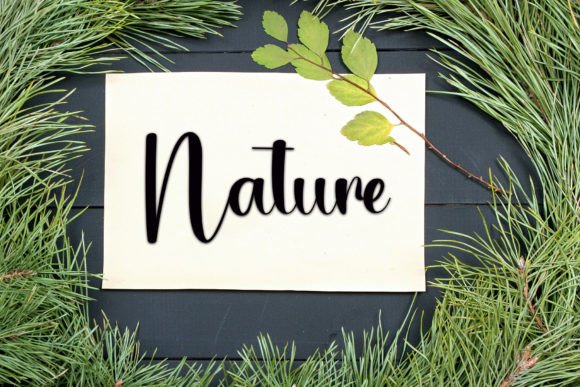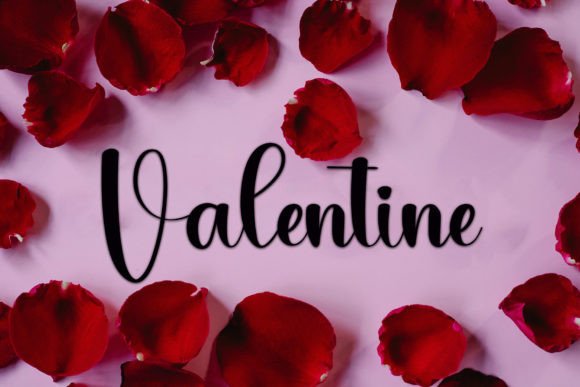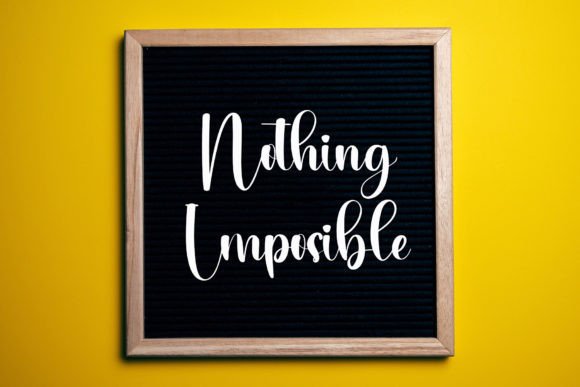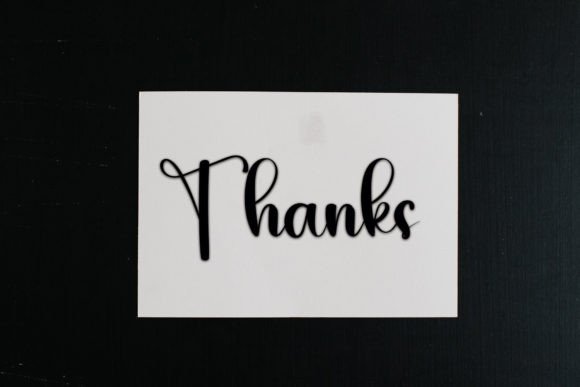
Introduction to Gratitude Font
Do you remember the moment you finally found the perfect font for your wedding invitation? The one that made all your design dreams come true? For many designers, discovering a high-quality font can be a game-changer, elevating their creative project from good to great.
Enter the Gratitude Font, a romantic and dainty script font that’s taking the design world by storm. With its classy, elegant, and modern look, this versatile font is perfect for logos, branding, invitations, stationery, and social media posts. Whether you’re a seasoned designer or just starting out, the Gratitude Font is a valuable addition to your design resource arsenal.
Key Features of Gratitude Font
- High-quality design resource suitable for creative projects, including invitations, greeting cards, and social media graphics.
- Unique, hand-drawn style with a transparent background, making it easy to layer over images or use as a standalone design element.
- Includes a range of characters, including uppercase and lowercase letters, numbers, and punctuation, making it a versatile design resource.
- Perfect for adding a personal touch to creative projects, with a focus on expressing gratitude and appreciation.
Honest Review: Gratitude Font
As a designer, I’m always on the lookout for high-quality design resources to elevate my creative projects. The Gratitude Font is one such resource that caught my attention, and I’m excited to share my honest review with you.
What works well: ✨ The Gratitude Font is a beautifully crafted font that exudes warmth and elegance. Its clean lines and minimalist design make it perfect for a variety of creative projects, from wedding invitations to corporate branding. The font also comes with a transparent background, which is a great feature for designers who want to create visually appealing graphics.
What doesn’t work well: ⚠️ While the Gratitude Font is a great resource, I did find that it’s not suitable for all types of projects. The font’s elegant design may not be the best fit for bold or edgy projects, and it may get lost in cluttered designs.
- Perfect for elegant or minimalist projects
Common Use Cases for Gratitude Font
The Gratitude Font is perfect for use in a variety of design projects, including:
- Social media graphics and advertisements.
- Presentations and slideshows.
- Flyers and brochures.